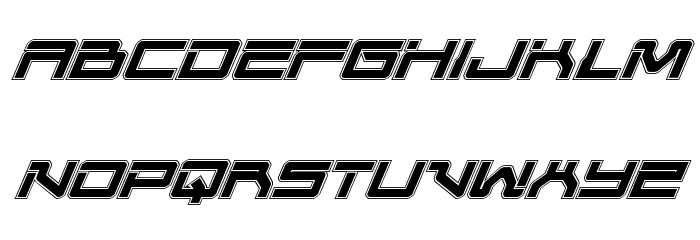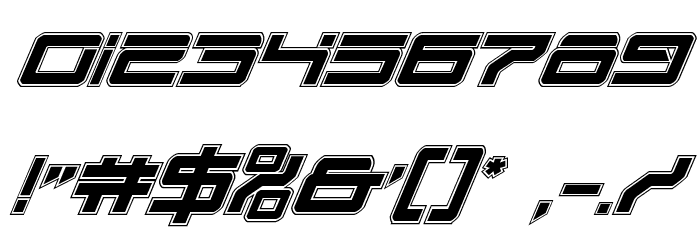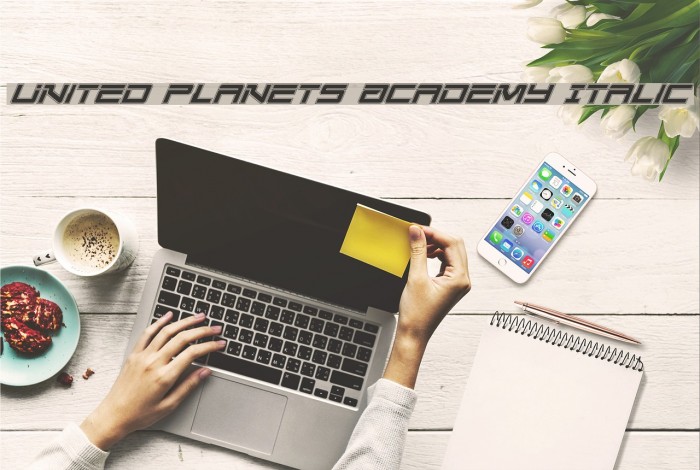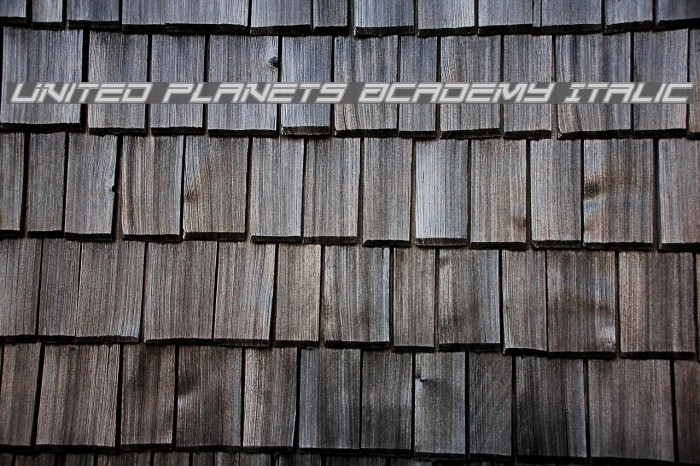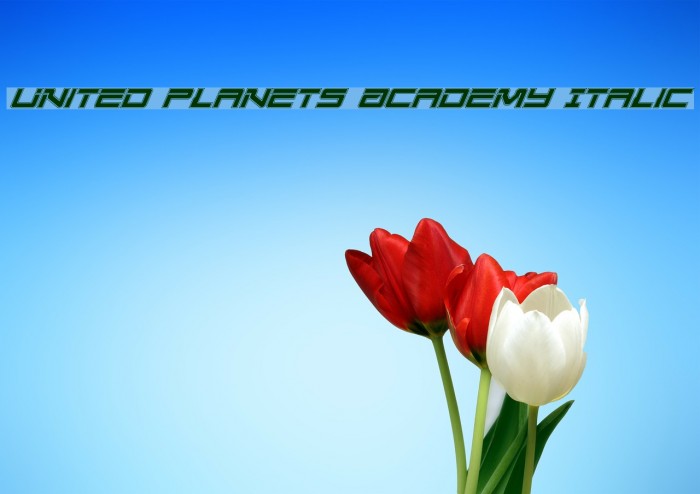
United Planets Academy Italic Font
This font features a futuristic and dynamic style, characterized by its italicized and bold letterforms. The design incorporates sharp angles and geometric shapes, giving it a modern and tech-inspired appearance. The uppercase and lowercase letters maintain a consistent slant, enhancing the sense of motion and speed. The numerals and special characters follow the same design principles, ensuring a cohesive look across all glyphs. The font's structure is clean and precise, making it suitable for projects that require a contemporary and edgy aesthetic.
A bold, italicized font with a futuristic and geometric design.
- Proposed Projects: Ideal for sci-fi themed projects, technology branding, video game titles, and modern advertising campaigns.